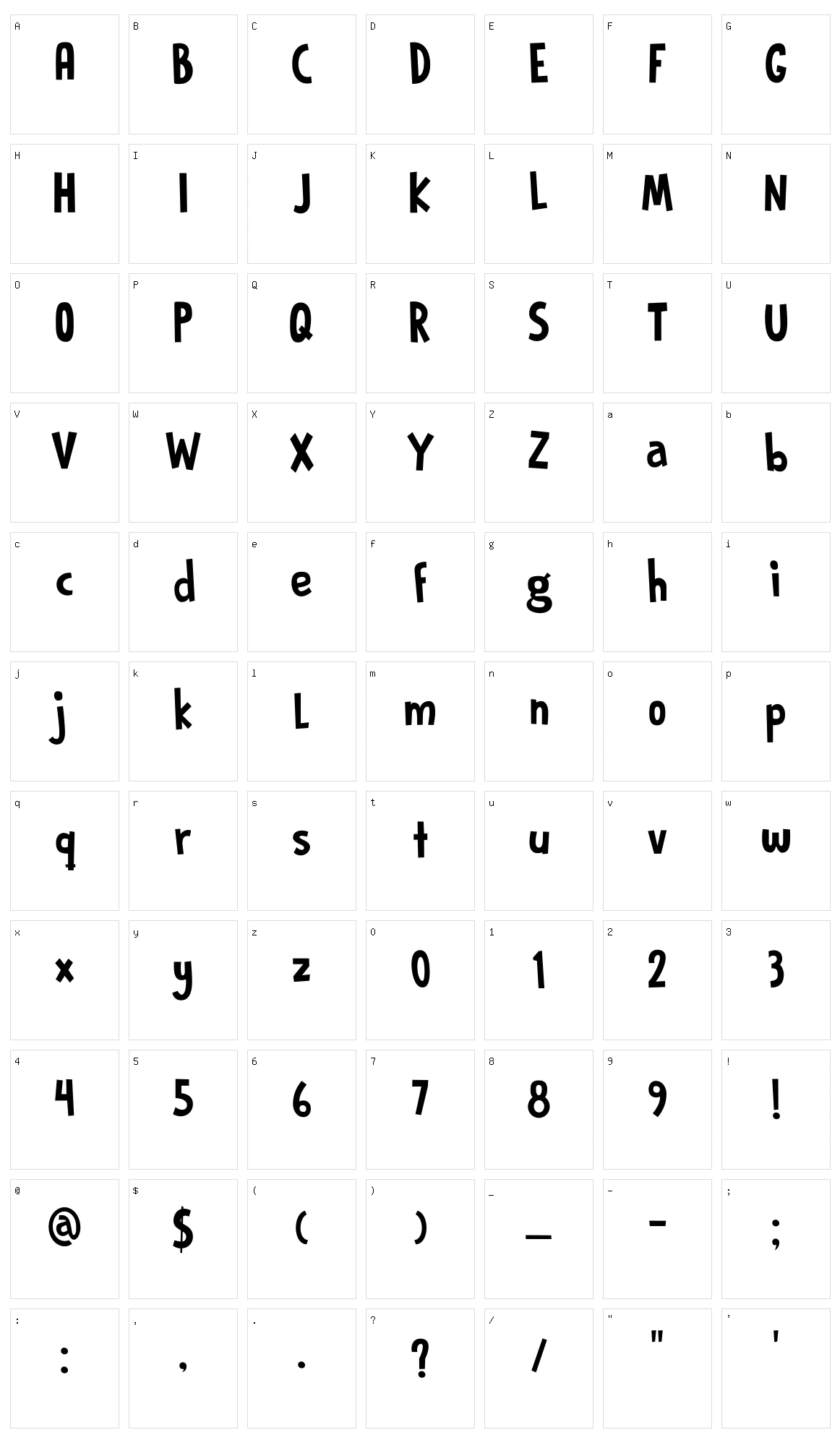
The free font DK Prince Frog is carefully designed by Hanoded, showcasing a thoughtful balance of creativity and usability and falls under the Cartoon font style. When you download the ZIP file, it contains only 78.85 KB of font files, making it lightweight and quick to download. Please review the license details below to understand permitted usage and distribution rights. If license information is not available, we recommend using this font for personal projects only or contacting the author directly for commercial usage permissions.